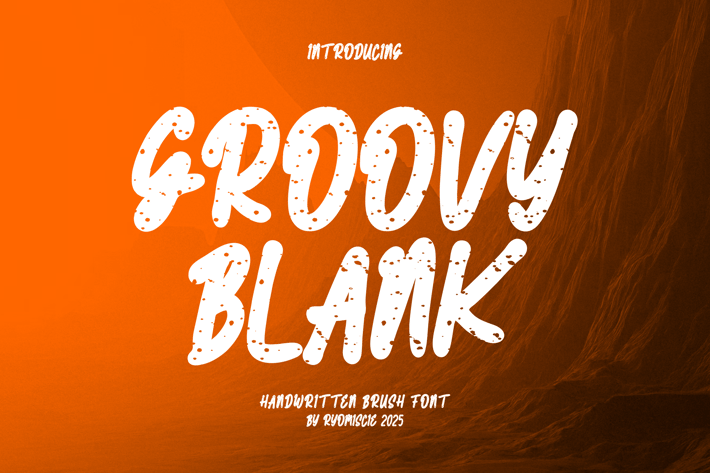
Groovy Blank - Handwritten Brush Font
Introducing our new product Groovy Blank Font - Handwritten Brush Font
Groovy Blank Font- Modern Font is a bold and authentic display font. The font is suitable for any branding project like logo,
t-shirt printing, esport, and many more. outstanding in a wide range of contexts.